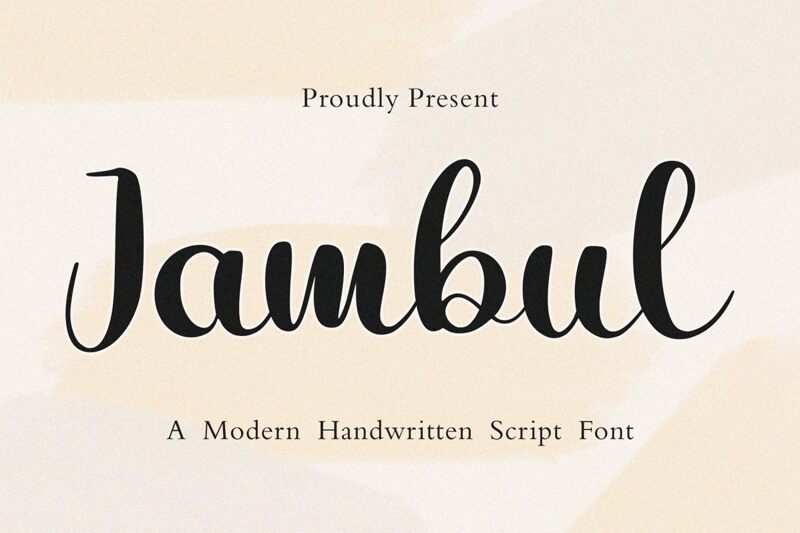
Jambul font from Essentials Studio is a delicate and elegant font with cursive, playful letterforms that hold a touch of magic within. The handwriting typeface features flowing letters, melodic baselines, decorative flourishes and smooth curves. This free font can be curled by the hand or trusted to do so by your computer; it gives wonderful results either way!
A sudden urge to write in calligraphy? Use this new favorite of invitation designers for wedding invitations (of course), calling cards, logos, magazines, packaging designs and branding projects that need a regal touch that portrays both beauty and style. This lovely whimsical font will truly work wonders anywhere!